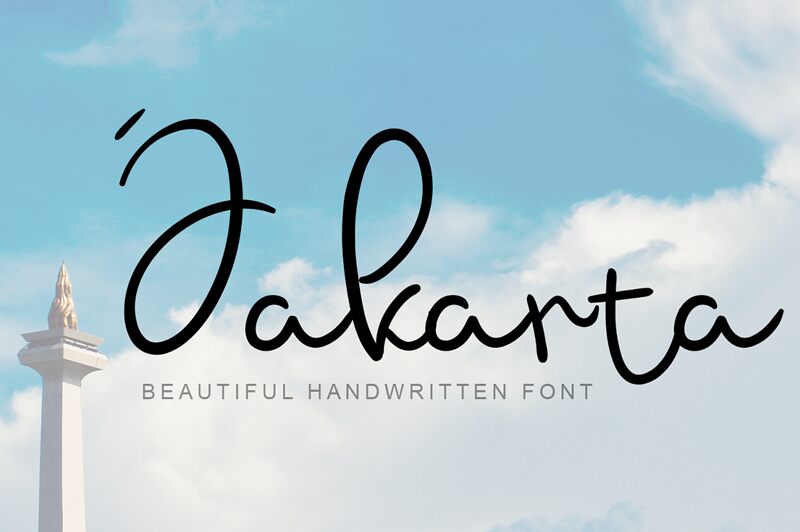
Jakarta
Jakarta font is a beautiful handwritten font designed by Andang.
- a simple calligraphy -
This font is a stunning script font with additional doodles for you to enjoy.
It is great for branding, packaging, quotes, wedding card, logo, signature, t-shirt designs, tote bag designs,
cards, banners, social media, and anything craft project.